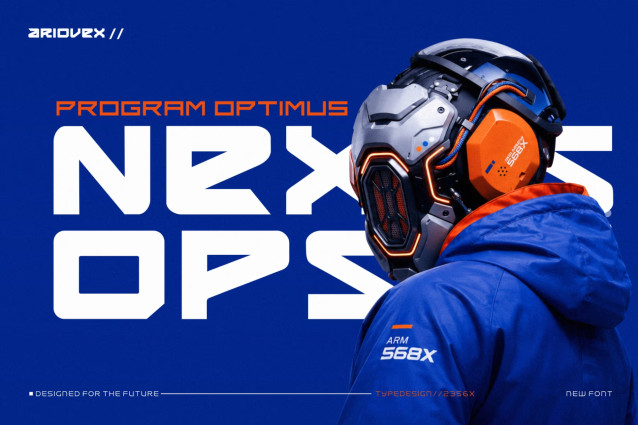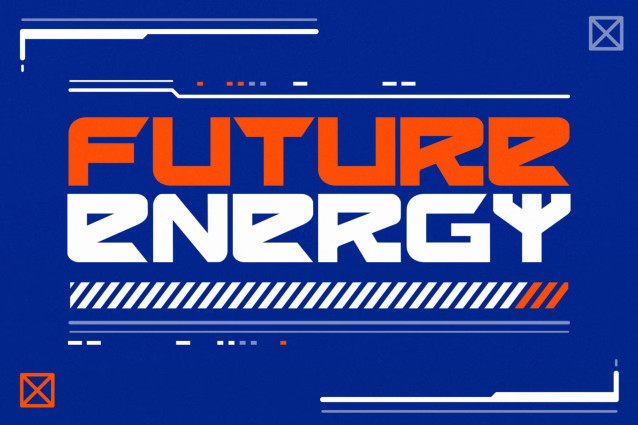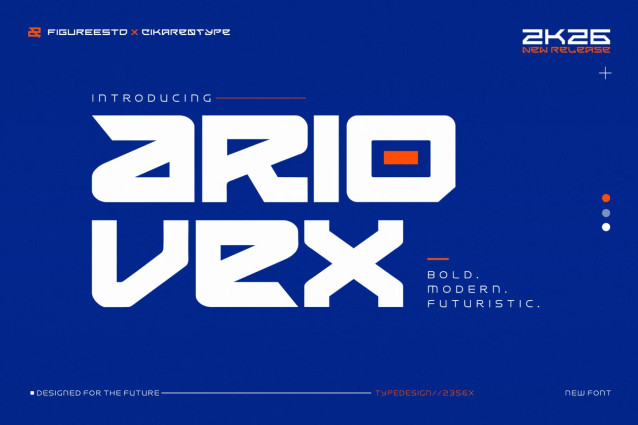
Ariovex Futuristic Display Font is created for designers who need typography with a confident, modern, and future-focused presence. Its all-caps letterforms make it a strong choice for prominent titles, compact wordmarks, campaign headlines, and visual identities that need to communicate innovation clearly.
The font package includes both Ariovex Regular and Ariovex Italic, giving you two practical options for building contrast within a design. Use the regular style for stable, commanding typography, then introduce the italic version when a composition needs more direction, motion, or emphasis.
Ariovex works especially well when typography must become a central visual element rather than simply supporting the layout. Its display-oriented personality helps short words, product names, event titles, and promotional messages take a more distinctive position within the composition.
Whether you are developing a technology brand, creating a science-fiction poster, preparing graphics for a gaming project, or producing digital campaign assets, Ariovex gives your text a focused visual identity while keeping the workflow practical across print and web projects.